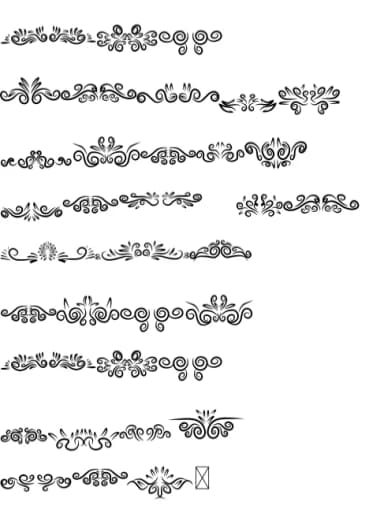
You're laying out a wedding invitation suite with a frontier aesthetic, and you need ornamental elements that feel right for the mood. Western, created by CraftedType Studio, is a dingbat font built for exactly this kind of work, delivering its value through a carefully assembled library of glyph illustrations and decorative dividers rather than through traditional letterforms.
Where Western demonstrates real utility is in projects that depend on ornamental richness. Craft and sticker designers use its character set to build borders and visual accents into their work. Wedding stationery gains depth and personality when framed with these ornamental elements, whether for invitation borders or thank-you card flourishes. Custom journal spreads benefit from the decorative touches without needing additional illustrations or graphics. DIY craft signage, boutique logo mark-making, planner layouts, t-shirt graphics, and greeting card designs all fit naturally within Western's toolkit.
The font gives you multiple variations to work with, letting you adjust the visual weight and density to match each project. These ornaments remain effective across sizes, from subtle border accents to bold standalone graphic elements. Pick up Western from Creative Fabrica and start exploring what you can build.
Western Font is a versatile dingbats font that works for both headings and body text. Pair it with a contrasting sans-serif or serif font to add visual interest and a clear distinction between titles and body copy.